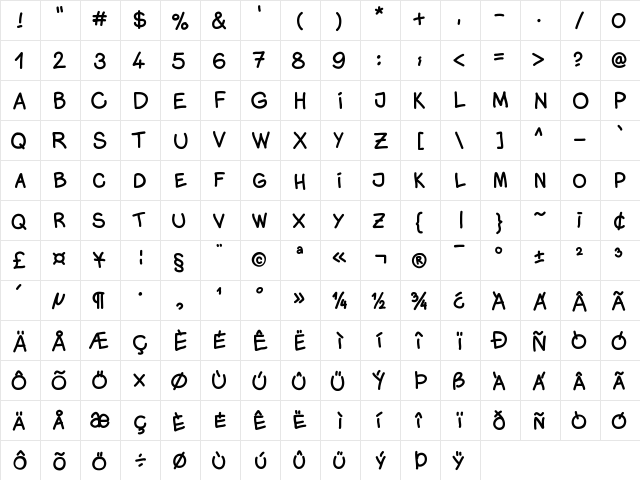
Monicacomic Medium
Design Context for Monicacomic Typeface
Monicacomic has an approachable, lighthearted character — its loose, expressive forms are well-suited to children's content, casual branding, and fun-first design.
Well-suited to food and beverage brands with personality, educational materials, and fun-forward identities.
Font Pairing: Pairs well with a rounded or humanist sans for body copy, maintaining the friendly tone without relying on Monicacomic to carry extended reading.
Pro Tip: Use Monicacomic at larger display sizes where its expressive character can land. Pair with a clean, simple sans for body copy to maintain readability.